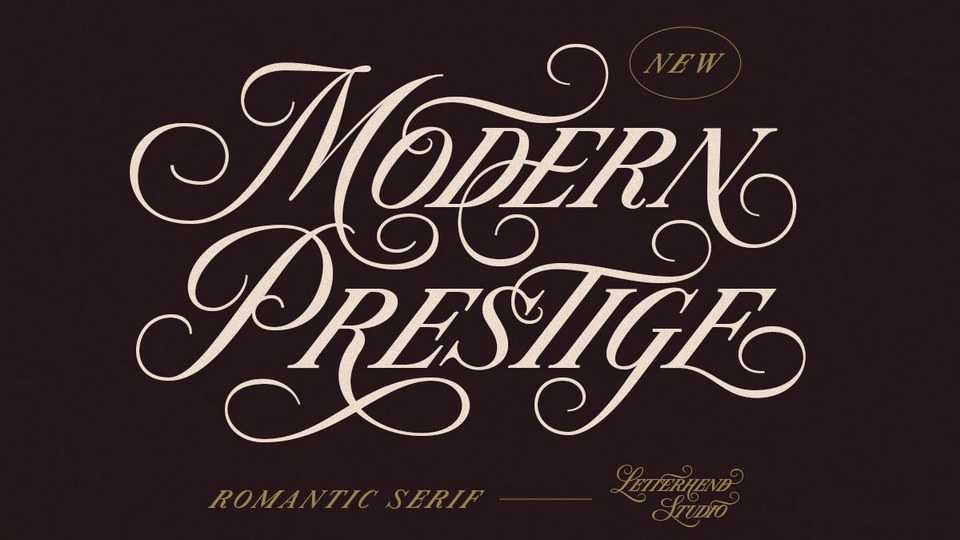
Download Modern Prestige font, a unique serif typeface combining copperplate script letterforms with fancy swashes. Modern Prestige perfectly made to be applied especially in logo and other various formal designs.